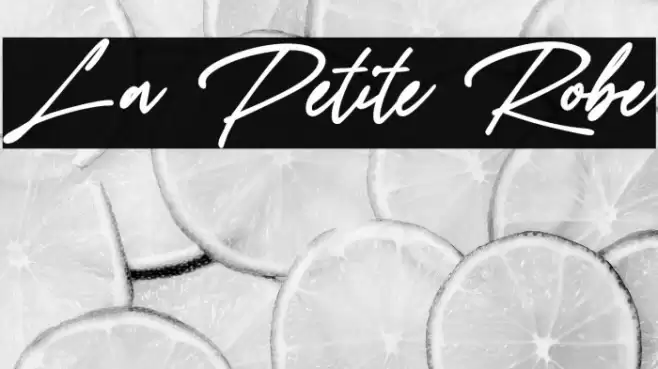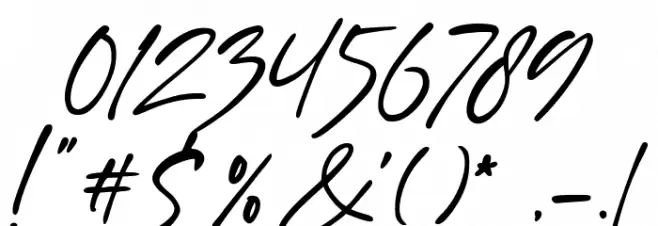
La Petite Robe Font
La Petite Robe Description
This font exudes a sense of elegance and fluidity, characterized by its cursive, handwritten style. The uppercase letters are slightly slanted, with a consistent stroke width that gives a smooth and flowing appearance. The lowercase letters maintain a similar style, with some letters connecting seamlessly to the next, enhancing the script-like quality. Numbers and special characters are crafted with the same attention to detail, ensuring a cohesive look throughout. The overall design is sophisticated and stylish, making it suitable for projects that require a personal touch.
Elegant, cursive handwritten style with smooth, flowing strokes from Uncategorized fonts.
- Proposed Projects: Ideal for wedding invitations, personal branding, elegant logos, and stylish social media graphics.
- Overall Style: Elegant, Decorative
- Use Case: Logos, Invitations, Personal Branding